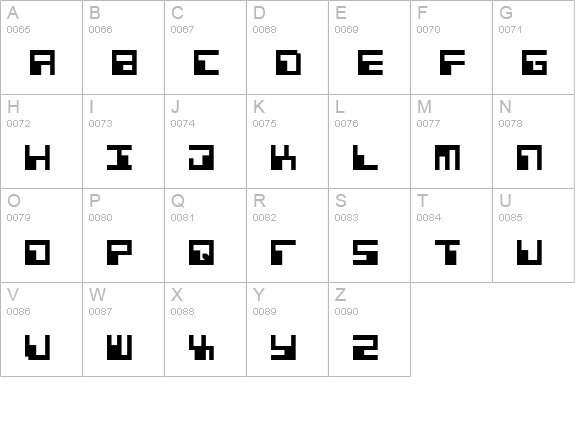
Phaser Bank Bold is a strong, high-contrast variant in the Phaser typeface family \xE2\x80\x94 well suited to headlines, attention-grabbing titles, and strong calls-to-action.
Phaser Bank Bold is a sleek and modern font that exudes confidence and professionalism. With its bold and dynamic design, this font is perfect for making a statement in any project. Whether you're working on a poster, logo, or website design, Phaser Bank Bold will give your text a bold and eye-catching look that is sure to impress. The best part? Phaser Bank Bold is available for free download at FontsMarket.com. This means you can easily access and use this stylish font in your personal and commercial projects without any cost. Don't miss out on this fantastic opportunity to elevate your design work with Phaser Bank Bold. Download it today and start creating stunning visuals that stand out from the crowd.